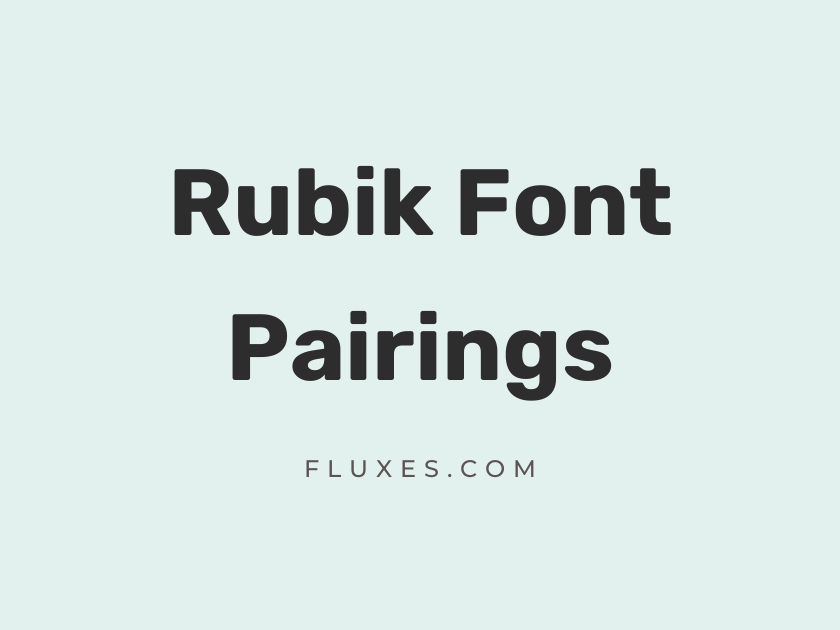
10 Best Font Pairings for Rubik
Rubik brings a friendly, geometric warmth to any layout, its slightly rounded terminals and low-contrast strokes making it equally at home as a headline face or a body workhorse. Because it reads as both approachable and structured, it pairs well with serious serifs, other geometric sans, and editorial serifs alike. These combinations lean on that flexibility, whether Rubik carries the headline or supports it.
Rubik + Karla
Karla shares Rubik's geometric bones but stays flatter and quieter on the page, letting long paragraphs breathe.
Both fonts come from the same low-contrast, grotesque-adjacent family tree, so pairing them creates a cohesive rather than clashing look. Karla’s slightly narrower proportions keep body copy compact under Rubik’s wider, more playful headlines. This combination suits SaaS marketing pages and product documentation.
Playfair Display + Rubik
Rubik's rounded, even letterforms settle comfortably under a high-contrast display serif without competing for attention.
This is a classic contrast pairing: Playfair’s dramatic thick and thin strokes need a body font with almost no personality of its own, and Rubik’s understated geometry delivers exactly that. It works well for boutique brand sites, wedding invitations, and editorial features that want a touch of glamour up top.
Rubik + Newsreader
Newsreader's transitional serif shapes add a literary calm beneath Rubik's rounder, more contemporary headlines.
Pairing a geometric sans headline with a text serif is one of the most reliable font pairing formulas, and Rubik and Newsreader execute it with restraint rather than drama. The serif’s moderate x-height and open counters keep long-form reading comfortable. Consider this combination for blogs, essays, and thoughtful product storytelling.
Fraunces + Rubik
Beneath Fraunces' soft, old-style curves, Rubik keeps interface copy legible and unfussy at small sizes.
Fraunces carries a wonky, almost hand-finished character in its display cuts, and Rubik’s clean geometry acts as a neutral counterweight so the pairing does not feel overly ornamental. This works nicely for lifestyle brands, food and beverage sites, and craft-focused portfolios.
Rubik + Merriweather
Merriweather's sturdy serif strokes were built for screens, giving Rubik headlines a dependable reading partner.
Both fonts were designed with digital legibility as a priority, so pairing them avoids the awkwardness that sometimes comes from mixing a screen-native sans with a print-era serif. The result feels current without sacrificing readability in dense text blocks. It suits news sites, knowledge bases, and long-form documentation.
Space Grotesk + Rubik
Rubik's rounded terminals soften Space Grotesk's technical edge, keeping body text approachable rather than clinical.
Space Grotesk’s monospace-influenced proportions give headlines a technical, product-forward feel, while Rubik’s friendlier curves prevent the overall page from reading as cold. This pairing fits developer tools, tech startups, and dashboard interfaces that want personality without losing precision.
Rubik + Lora
Lora's gentle calligraphic curves give Rubik headlines a softer, more narrative body companion.
Lora’s moderate contrast and brush-influenced curves add a touch of warmth that echoes Rubik’s rounded corners, so the two feel related despite one being serif and one sans. This makes for a comfortable pairing in personal blogs, author sites, and magazine-style layouts.
Bitter + Rubik
Rubik's compact, even rhythm keeps interface text tidy beneath Bitter's slab-serif confidence.
Slab serifs like Bitter carry a sturdy, almost industrial presence that benefits from a body font with minimal flourish, and Rubik supplies exactly that kind of understated support. This pairing reads well in editorial pieces, agency sites, and anywhere a headline needs weight without shouting.
Rubik + Vollkorn
Vollkorn's traditional serif proportions bring a settled, book-like texture to paragraphs under a modern headline.
The pairing works through deliberate contrast in era and mood: Rubik feels distinctly contemporary while Vollkorn nods to classic book typography, and the gap between them gives each element clear purpose. It is well suited to publishing platforms, academic sites, and long-form reading experiences.
Rubik + Inter
Inter's neutral, screen-optimized letterforms let Rubik headlines stand out without any stylistic friction.
Because Inter was engineered specifically for UI legibility, it recedes politely and lets Rubik’s rounder, more expressive headlines do the talking. This is a dependable choice for web apps, dashboards, and product marketing where clarity matters as much as character.
Tips for pairing Rubik successfully
Keep body fonts on the neutral side when Rubik’s headlines are doing expressive work, and let more distinctive serifs take a supporting role only when Rubik moves to body text.
Watch size relationships closely: Rubik’s rounded shapes can look slightly larger than they measure, so test headline and body sizes side by side rather than trusting default scales.
For interface-heavy projects, pair Rubik with another screen-native sans; for editorial or lifestyle projects, reach for a serif with some warmth to match its rounded personality.